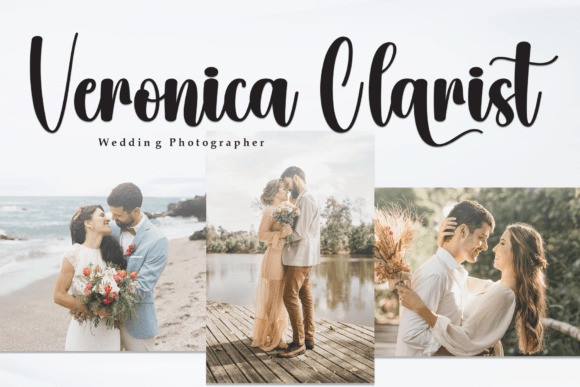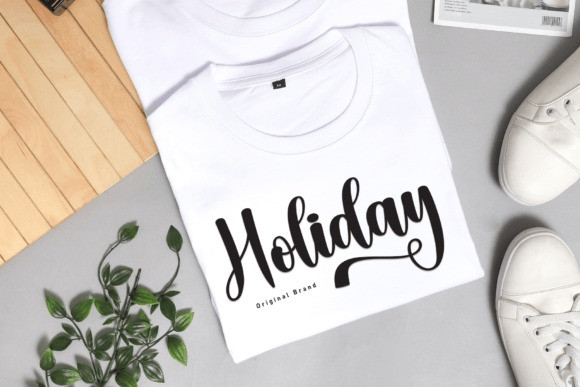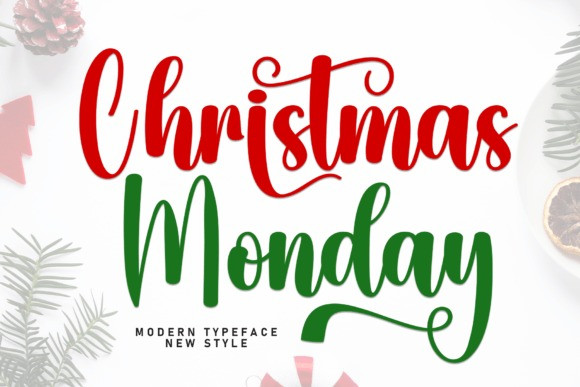
Christmas Monday Typeface
Christmas Monday Typeface is a sweet and friendly handwritten font. Its natural and unique style makes it incredibly fitting to a large pool of designs. The only limit is your imagination!